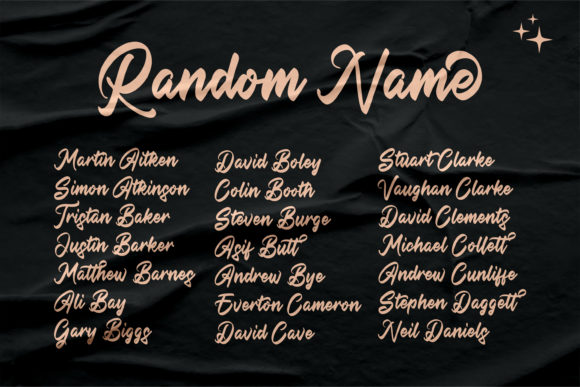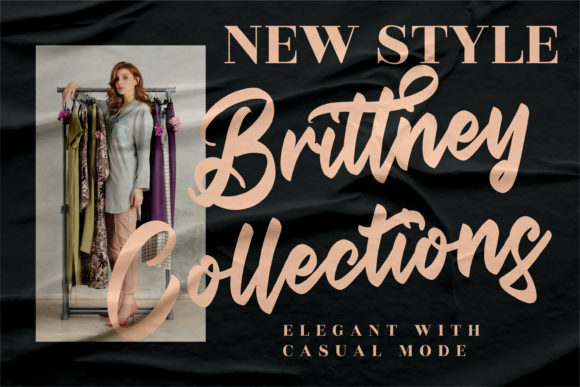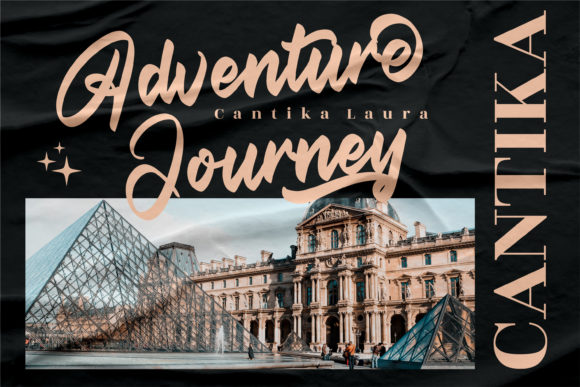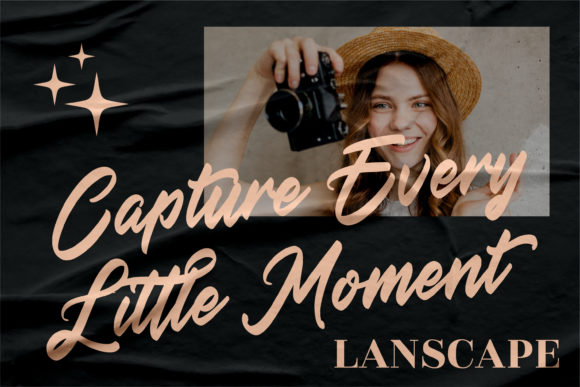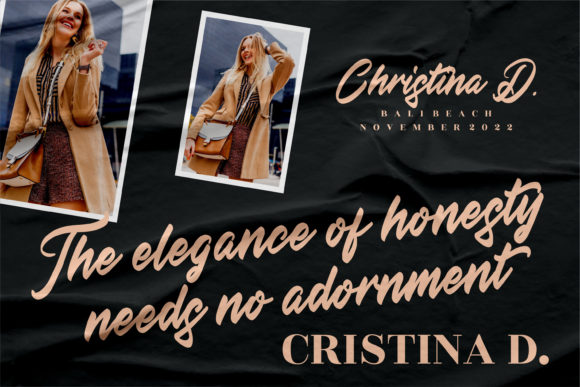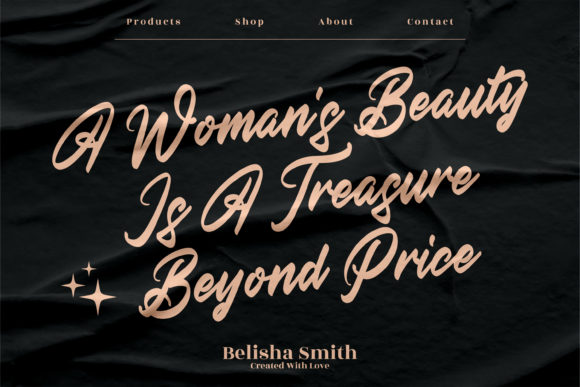
Discover the Timeless Beauty of Amsterdam Lentteria Font
You’re sipping your morning coffee, staring at your computer screen, and trying to come up with the perfect design concept. The words just won’t seem to flow, and your usual creative spark is nowhere to be found. But then, you stumble upon the perfect font – Amsterdam Lentteria Font. Its elegant script and contemporary atmosphere transport you to a world of sophistication and style.
Amsterdam Lentteria Font is more than just a pretty face; it’s a powerful tool designed to elevate your projects to the next level. With its impeccable form and balanced, varied strokes, this font is the perfect addition to any designer’s toolkit. Whether you’re working on a logo, brochure, or website, Amsterdam Lentteria Font is sure to add a touch of class and sophistication.
Amsterdam Lentteria Font Key Features
- Font Family: Amsterdam Lentteria is a unique, high-quality font family that offers a range of styles, from elegant to bold.
- Size: The font family includes multiple weights, ranging from Light to Extra Bold, allowing for a wide range of typographic expressions.
- Unique Characteristics: Amsterdam Lentteria features a distinctive, hand-drawn aesthetic with intricate details and ornaments, making it ideal for luxury branding and high-end design projects.
Amsterdam Lentteria Font Review
I recently had the chance to work with the Amsterdam Lentteria font, and I must say it’s a unique addition to any design project. ✨ The font’s playful, handwritten feel is perfect for creating a friendly and approachable atmosphere in branding, advertising, or even digital interfaces. The varied line weights and connecting strokes make it easy to read and use in a variety of contexts.
One of the things I appreciate about Amsterdam Lentteria is its versatility. ✨ It can be used in both formal and informal settings, making it a great choice for designers who want to add a touch of personality to their work. Additionally, the font’s OpenType features allow for some nice stylistic variations, which can help to create a more dynamic and engaging visual experience.
- ⚠️ Limited language support, which may be a concern for designers working with non-English texts.
- ⚠️ Some users may find the font’s connections and flourishes a bit too ornate, which can be distracting in certain contexts.
Overall, I think Amsterdam Lentteria is a solid choice for designers looking to add some personality to their work. While it may have some limitations, the font’s unique character and versatility make it a great addition to any design project.
The Amsterdam Lentteria Font is perfect for:
- Creating modern and trendy designs
- Adding a touch of elegance and sophistication